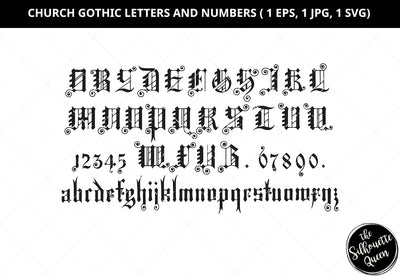
Each image is a black silhouette for easy recoloring in your favorite image editing software. Incredibly useful for logo design, nursery art, wedding invitations, wedding crafts, scrap booking, custom invitations, teaching resources, greeting cards, stickers, t-shirts, wall art, print-on-demand fabric, web design and anything else you can think of. "